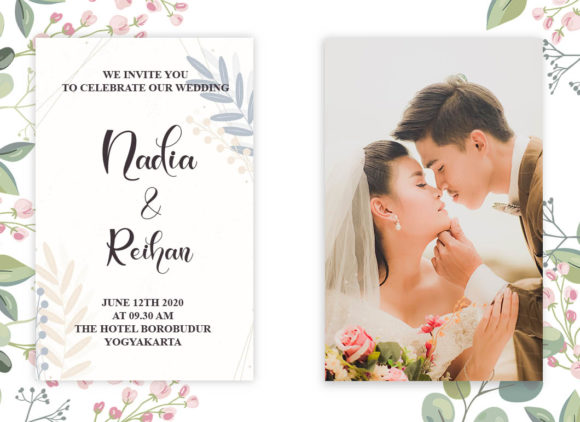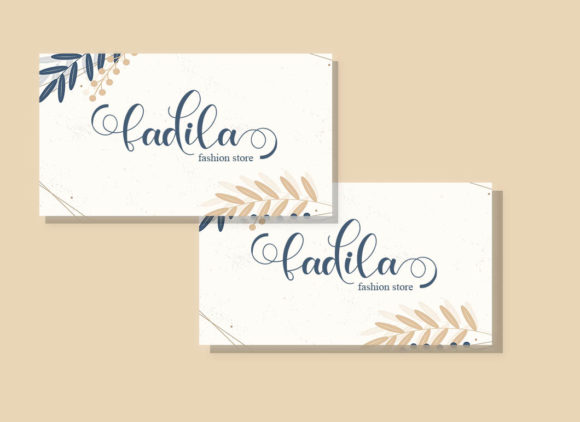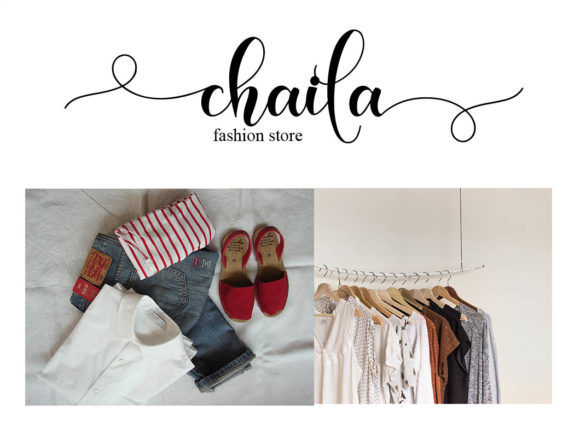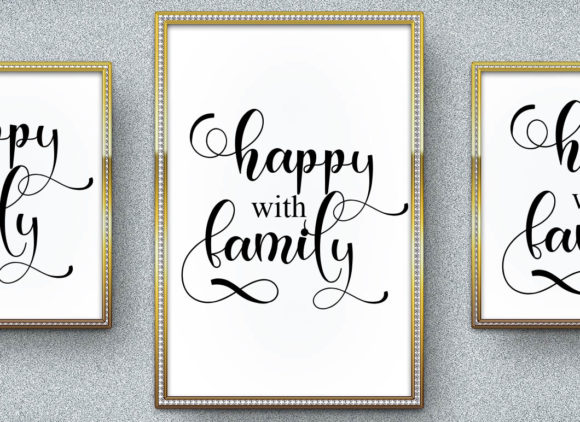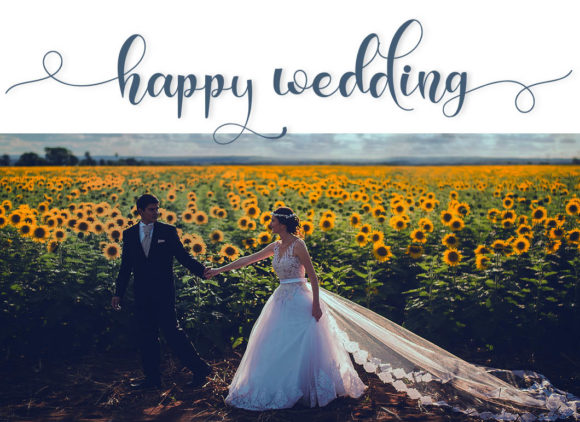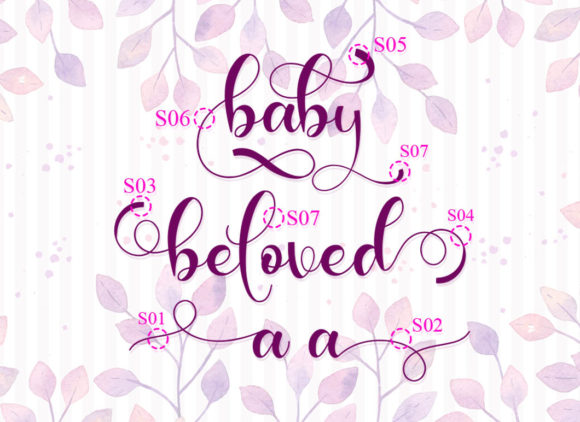
The Sweet Allisa Font: A Designer’s New Best Friend
I’ll never forget the time I was working on a wedding invitation project, and my client asked for a font that was ” elegant, yet playful, and totally unique.” I scoured the internet, tried out a gazillion fonts, but nothing seemed quite right. That was until I stumbled upon the Allisa font. 💕
Allisa is a sweet handwritten font that has become a staple in my design toolkit. It’s PUA encoded, which means you can access all of the glyphs and swashes with ease! In this article, I’ll share my love for Allisa, its features, and provide a practical guide on how to use it on different platforms.
An Honest Review of Allisa Font
What I Love About Allisa ✨
- 💖 Sweet and elegant handwritten style
- 🌈 Features a varying baseline, smooth lines, and stunning alternates
- 📸 Perfect for creating gorgeous wedding invitations, beautiful stationery art, eye-catching social media posts, and cute greeting cards
While Allisa is an amazing font, there are a few things to keep in mind:
- 🤔 Some users may find the font a bit too ornate for certain projects
- ⚠️ Not all platforms support OpenType features, which may limit the font’s full potential
The Story Behind Allisa Font
Allisa was designed with love and care by a talented font creator who wanted to craft a unique, handwritten font that would inspire designers and crafters. The font’s name, Allisa, reflects the designer’s desire to create a font that feels approachable, friendly, and beautiful.
| Font Name | Allisa Font |
Q: What is PUA encoding, and why is it important?
A: PUA (Private Use Area) encoding allows font creators to include additional characters, glyphs, and swashes that aren’t part of the standard Unicode character set. This means you can access more features and variations with the Allisa font.
Q: Is Allisa a difficult font to use?
A: Not at all! Allisa is designed to be user-friendly, even for those without extensive design experience. With a little practice, you’ll be creating beautiful projects in no time.